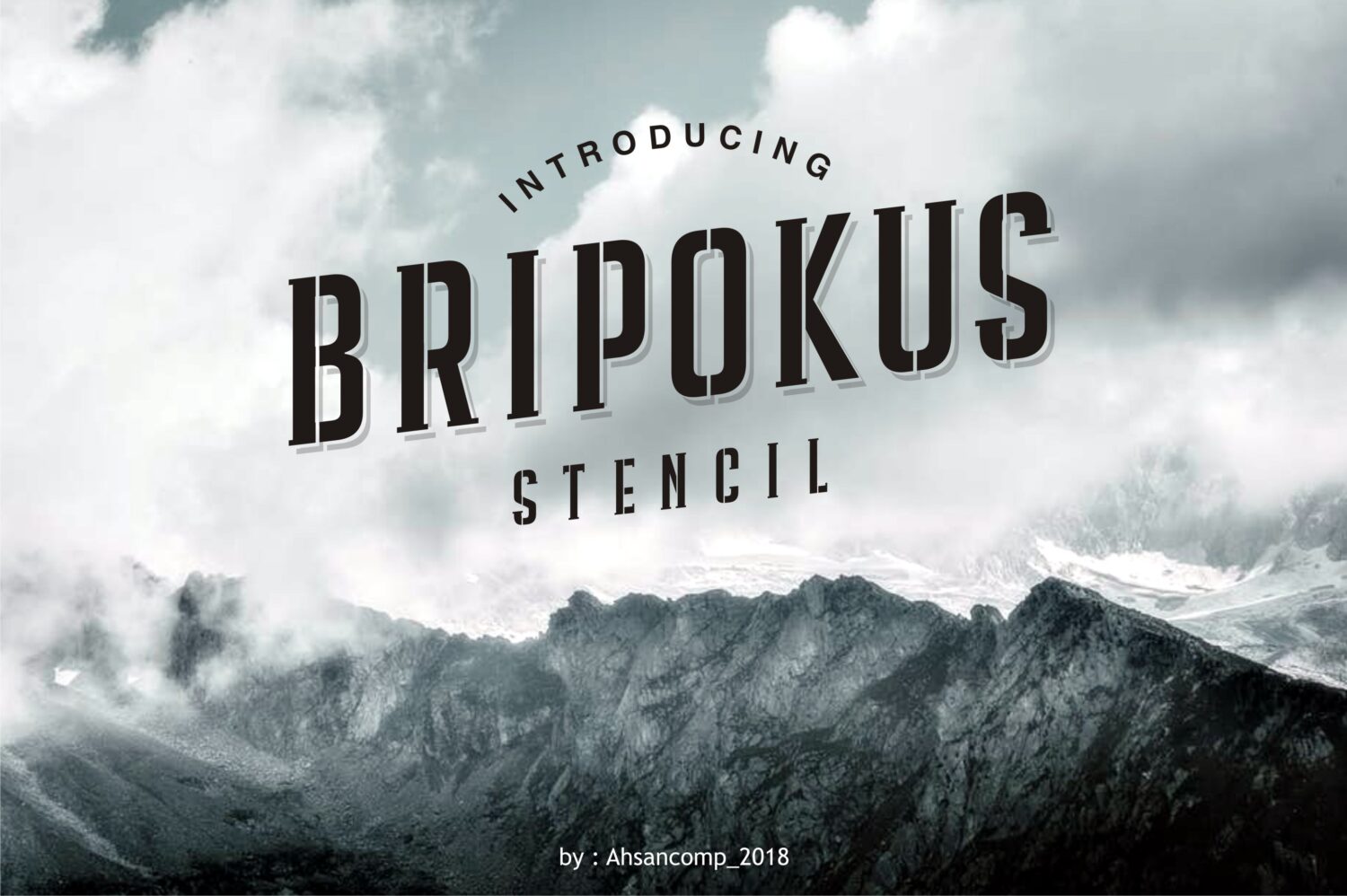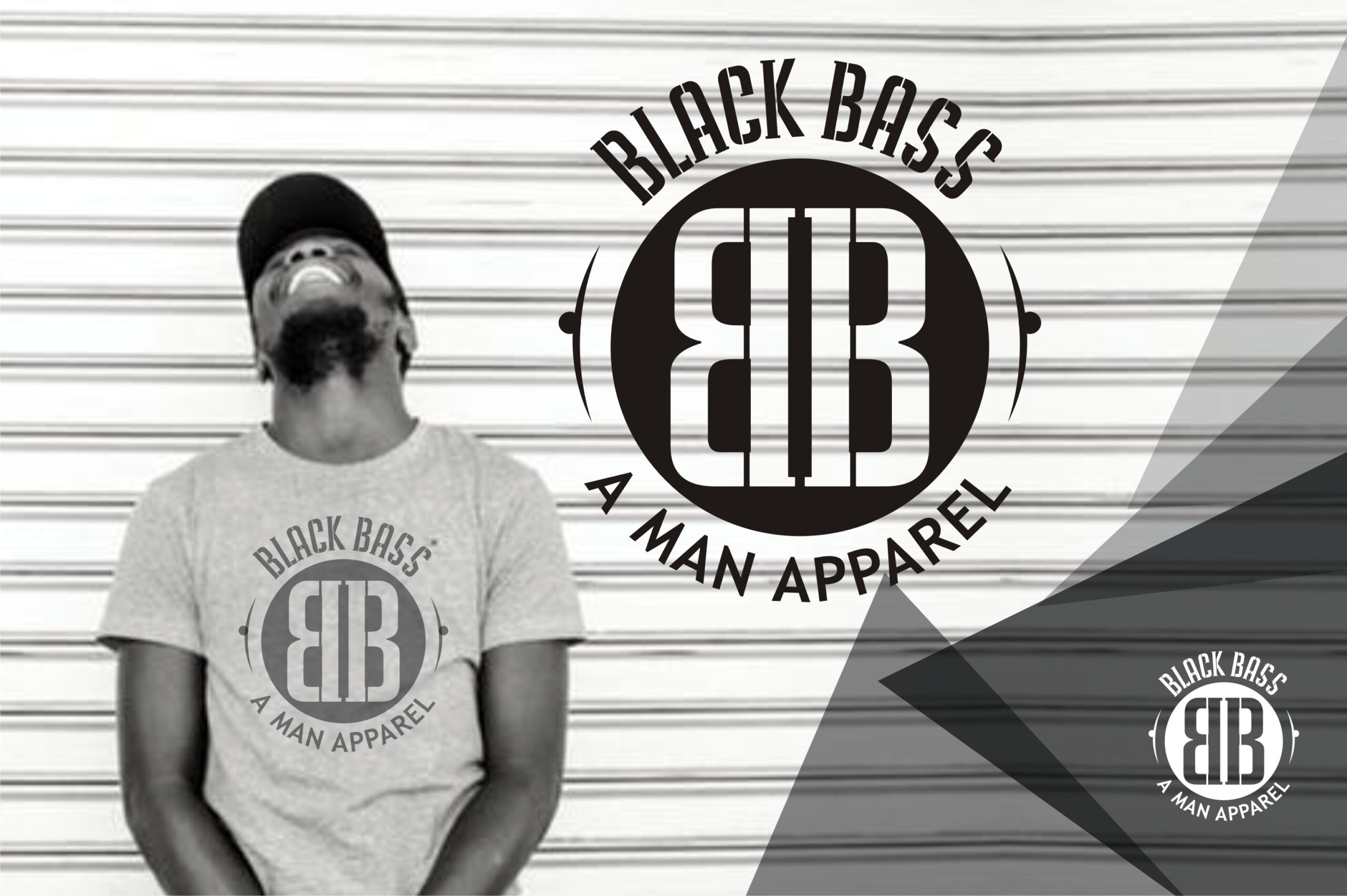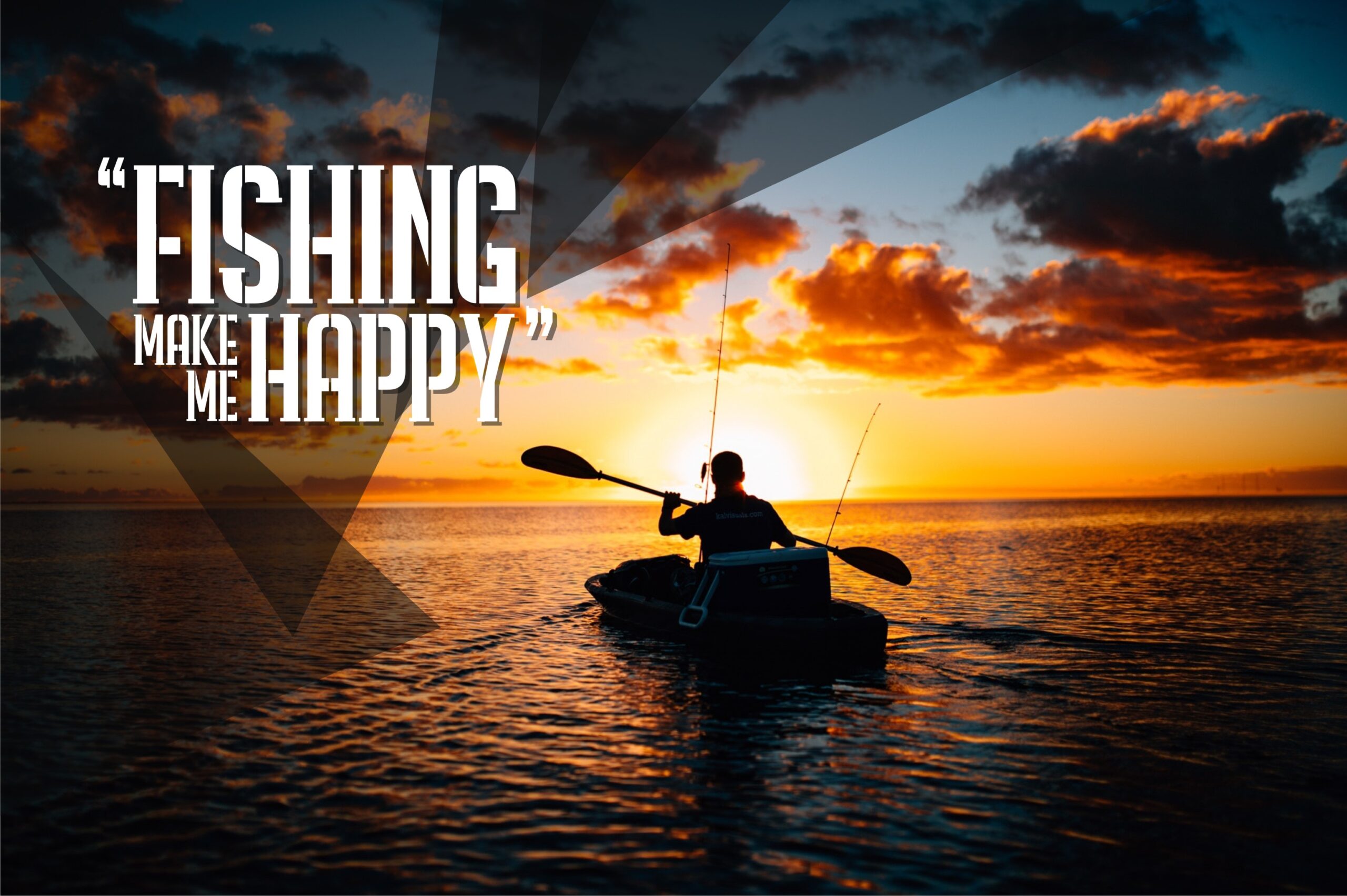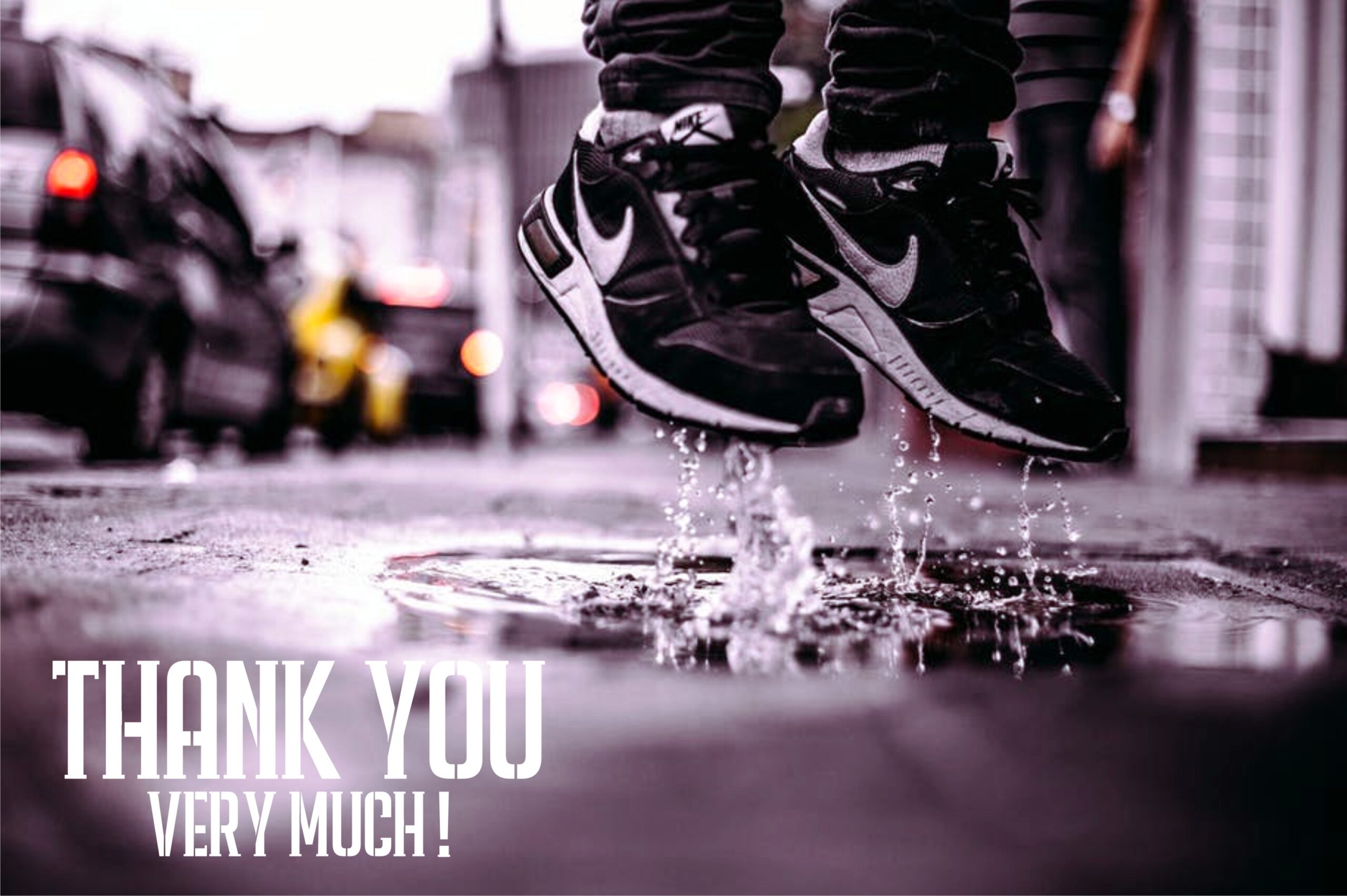
Bripokus Free Font
Bripokus Free Font is a Bold Condensed Stencil Typeface. It’s best to be used on Poster, Web Header, Book Cover, Packaging, and other design that needs strong and bold feels. It’s a regular style. This font is free for personal and commercial use. This free typeface was designed by a talented Ahsancomp Studio. If you like it don’t forget to check out the full version.